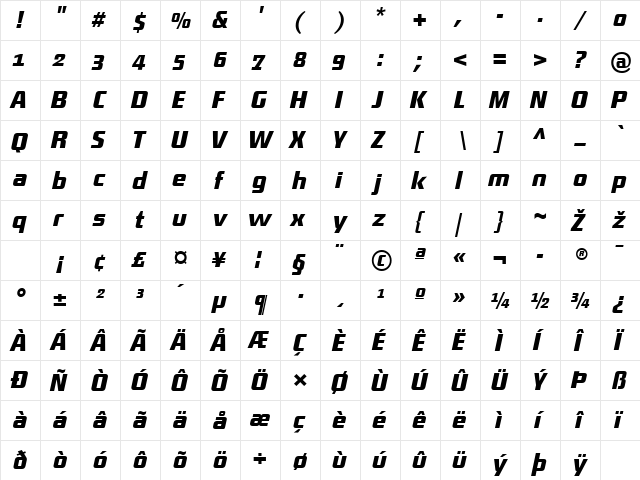
District-MediumItalic Regular
| Foundry | FontShop International |
| Designer | Albert Boton |
Design Context for District-MediumItalic Typeface
District-MediumItalic takes a measured approach to typography — its balanced proportions and neutral character make it a reliable workhorse for both digital and print work. The dynamic lean of this cut emphasises speed and emphasis in any layout.